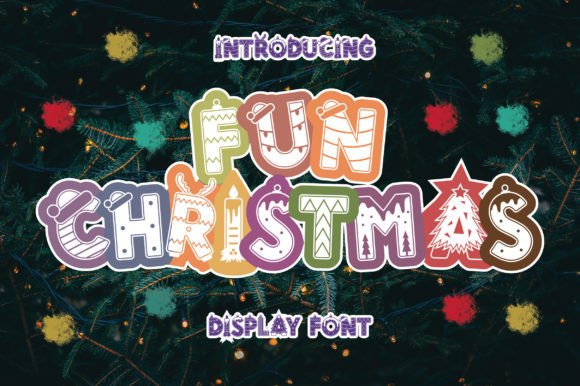
Fun Christmas Font: Add a Festive Touch to Your Holiday Projects
Are you looking for a fun and festive font to add a touch of Christmas cheer to your holiday projects? Look no further than the Fun Christmas font! This cute decorative font is perfect for creating a variety of Christmas-themed projects, from posters and t-shirts to invitations and Christmas cards.
About Fun Christmas Font
Fun Christmas is a cute decorative font with a Christmas theme. Its playful and whimsical design makes it perfect for adding a festive touch to your holiday projects. The font is easy to use and can be installed on your computer in just a few simple steps.
Whether you’re a graphic designer, a DIY enthusiast, or just someone who loves Christmas, Fun Christmas font is a great addition to your font collection. Its versatility and charm make it suitable for a wide range of projects, from personal to professional.
10 Fun Project Ideas Using Fun Christmas Font
- Christmas Posters: Create eye-catching posters to decorate your home or office during the holiday season. Use Fun Christmas font to add a festive touch to your posters and make them stand out.
- T-Shirts and Apparel: Design custom t-shirts, hoodies, and other apparel using Fun Christmas font. Perfect for holiday gifts or as a fun way to show off your festive spirit.
- Christmas Invitations: Create personalized Christmas invitations using Fun Christmas font. Add a touch of elegance and sophistication to your invitations and make them memorable.
- Christmas Cards: Design beautiful Christmas cards using Fun Christmas font. Send your loved ones a thoughtful and festive greeting this holiday season.
- Holiday Gift Tags: Add a personal touch to your holiday gifts with custom gift tags designed using Fun Christmas font.
- Christmas Party Decorations: Create festive decorations for your Christmas party using Fun Christmas font. Design banners, garlands, and other decorations to set the mood for a fun and festive celebration.
- Social Media Graphics: Use Fun Christmas font to create engaging social media graphics, such as Facebook posts, Twitter headers, and Instagram stories.
- Christmas Newsletter: Design a festive Christmas newsletter using Fun Christmas font. Share holiday updates, recipes, and stories with your friends and family.
- Holiday Website Banners: Add a festive touch to your website with holiday banners designed using Fun Christmas font.
- Christmas Stationery: Create custom Christmas stationery, including letterheads, envelopes, and notepads, using Fun Christmas font.
Features of Fun Christmas Font
- Unique and Playful Design: Fun Christmas font features a unique and playful design that is sure to add a festive touch to your projects.
- High-Quality: Fun Christmas font is a high-quality font that is designed to produce crisp and clear text.
- Versatile: The font is versatile and can be used for a wide range of projects, from personal to professional.
Tips and Tricks for Using Fun Christmas Font
- Experiment with Different Sizes and Colors: Experiment with different sizes and colors to find the perfect combination for your project.
- Pair with Other Fonts: Pair Fun Christmas font with other fonts to create a unique and interesting design.
- Use in Combination with Images: Use Fun Christmas font in combination with images to create a visually appealing design.
- Make it 3D: Use design software to create a 3D effect with Fun Christmas font.
Fun Christmas font is a cute and festive font that is perfect for adding a touch of Christmas cheer to your holiday projects. With its playful and whimsical design, it’s sure to make your projects stand out. Whether you’re a designer or a DIY enthusiast, Fun Christmas font is a great addition to your font collection.